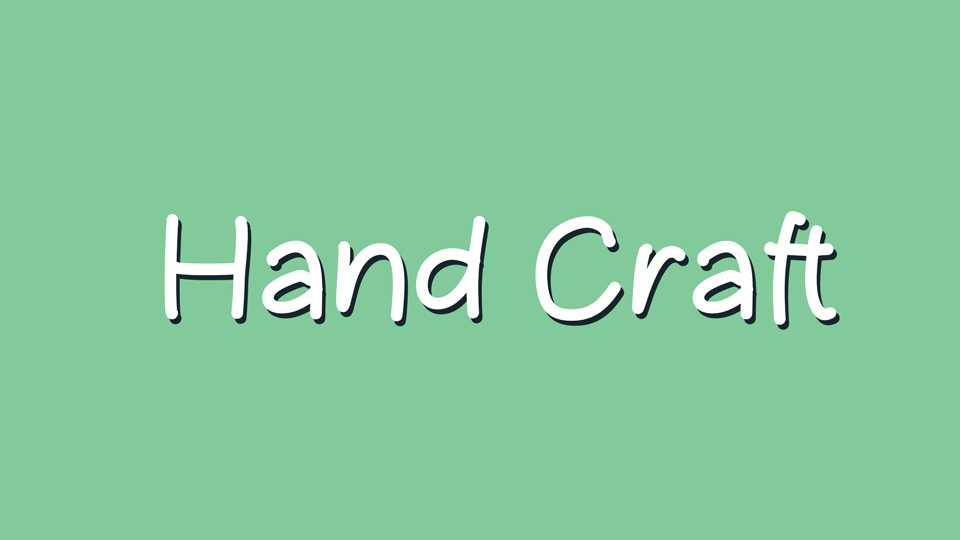
Download Hand Craft font, a hand lettered comic typeface charged with fun and happiness. With its organic and natural look, Hand Craft font is ready to make a warm impression.